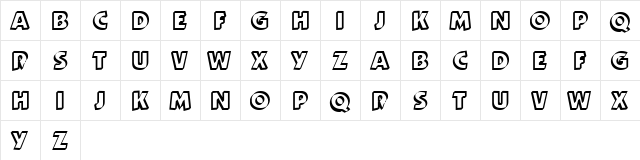
RabatCaps Normal
Design Context for RabatCaps
RabatCaps is a composed and adaptable typeface that performs quietly and consistently across a wide range of design contexts.
Pro Tip: Use RabatCaps in both headline and body roles to test its range before committing to a single application.